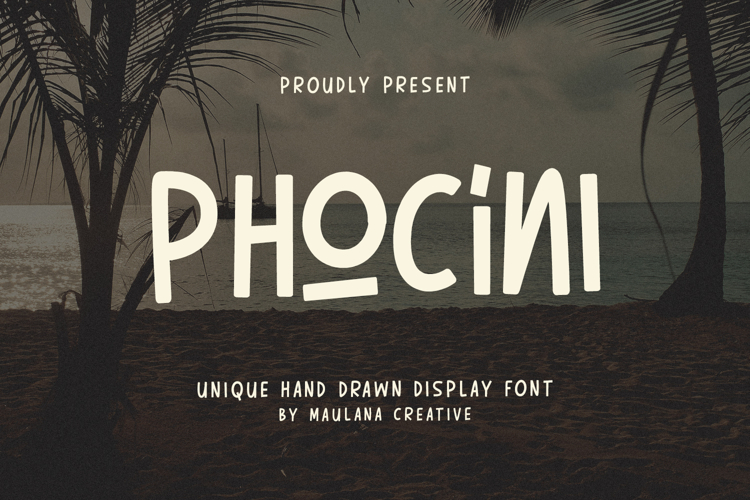
Phocini Unique Hand Drawn Display Font
Phocini is a unique hand-drawn display font with a playful and casual style that brings warmth to any design. With its quirky strokes and natural handmade feel, Phocini is perfect for branding, posters, quotes, packaging, children’s designs, beach-themed projects, and creative materials. This all-caps font comes with ligatures, alternate styles, numbers, punctuation, and multilingual support, making it a versatile choice for both professional projects. Whether you’re designing for summer vibes, inspirational messages, or eye-catching headlines, Phocini adds charm and originality to your work.